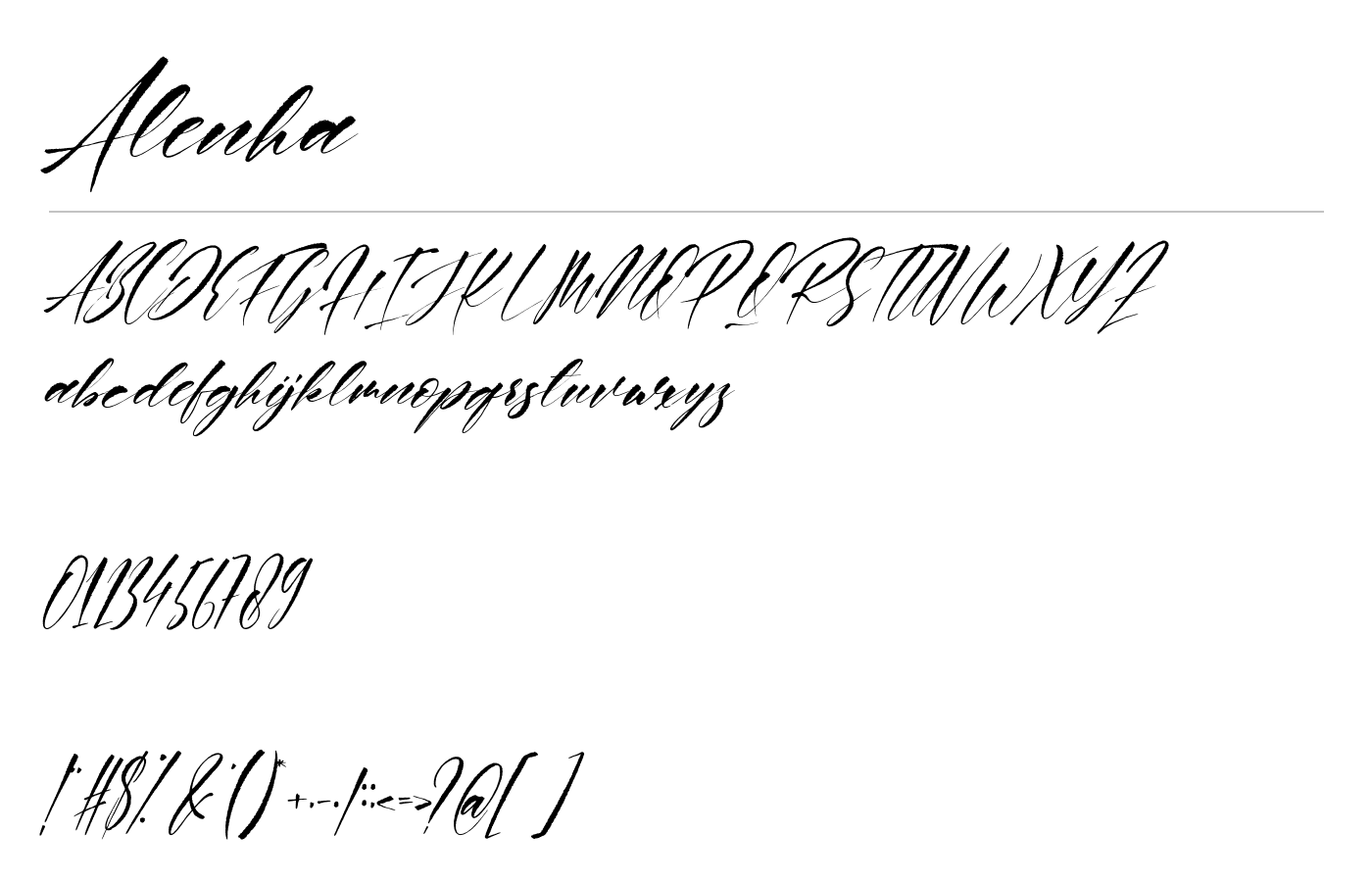
Alenha is a stylish, cursive script font with elegant, flowing strokes that give it a sophisticated and handmade feel. Its thin, sharp lines and varying stroke widths create a dynamic, graceful movement ideal for luxury branding, invitations, and artistic logos. This font works best in expressive headlines or decorative uses where a personal, refined touch is desired.
Alenha Font
About Alenha Font
| Font family | Alenha Font |
| Designer | Pineungtype |